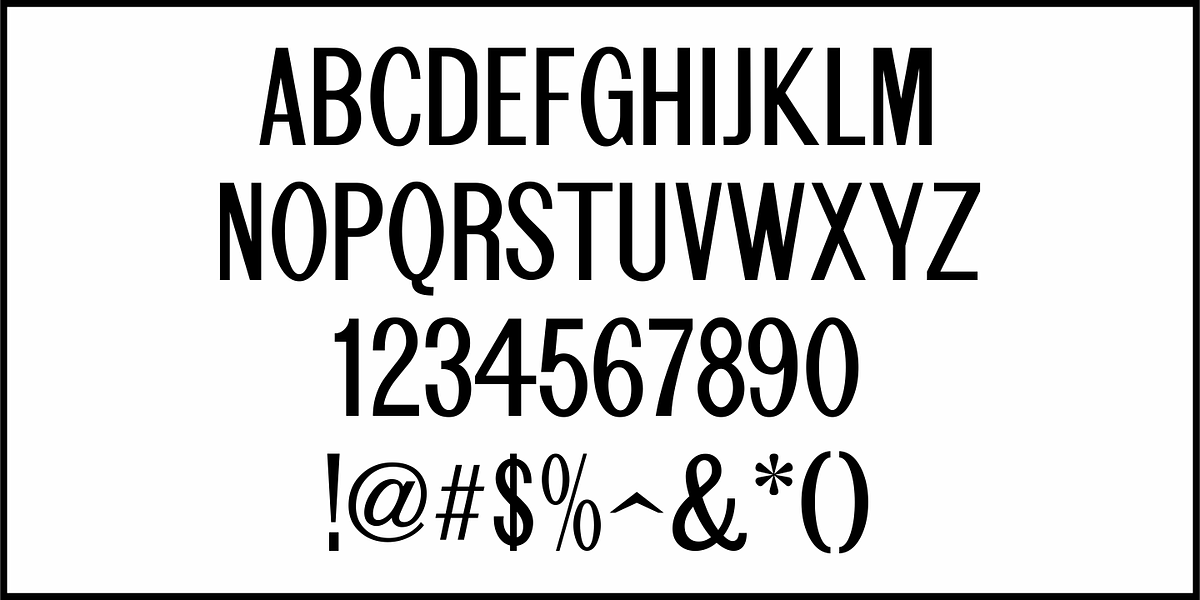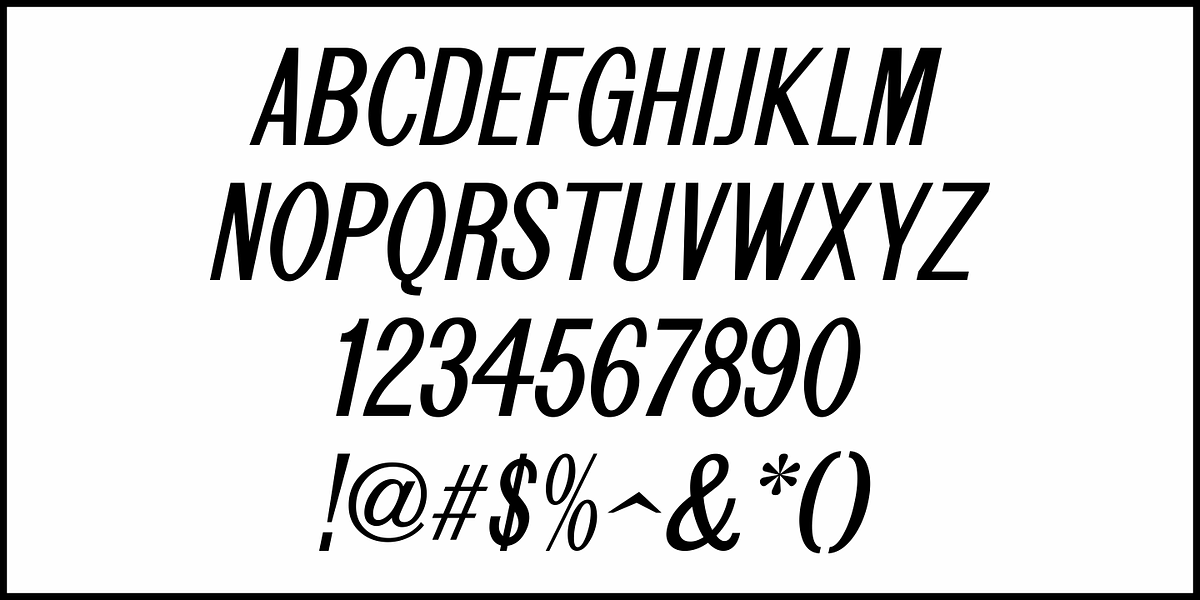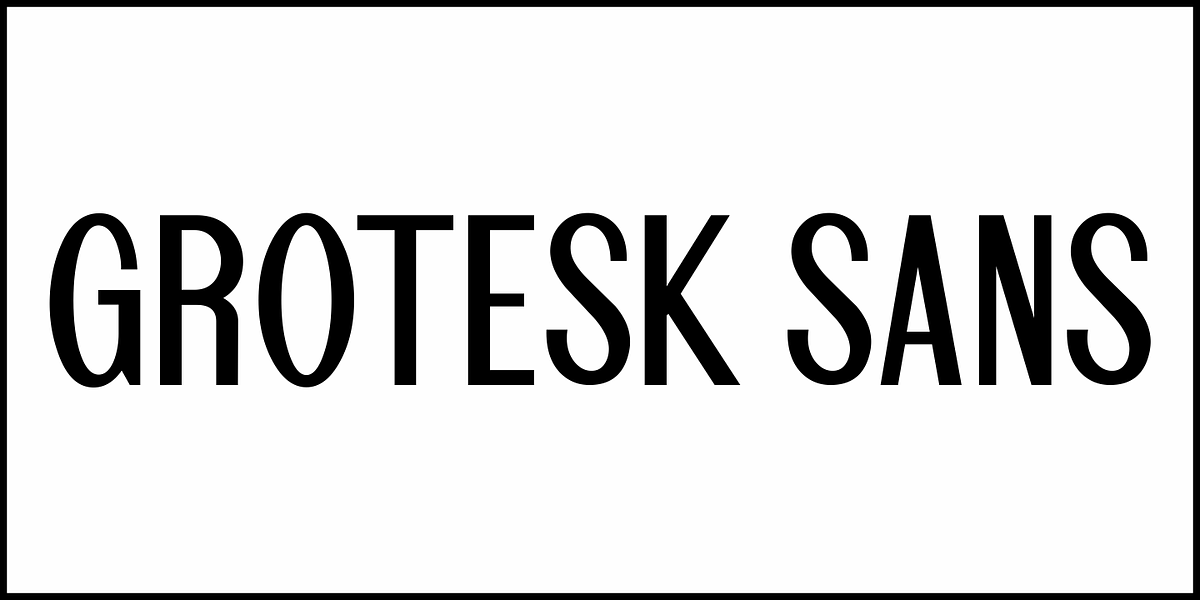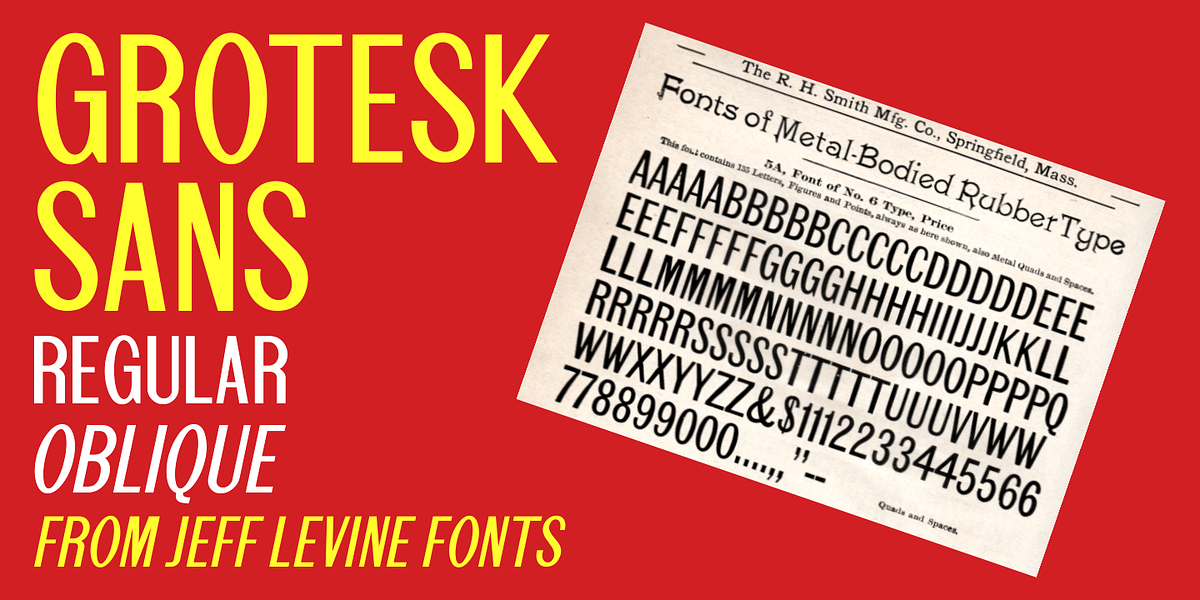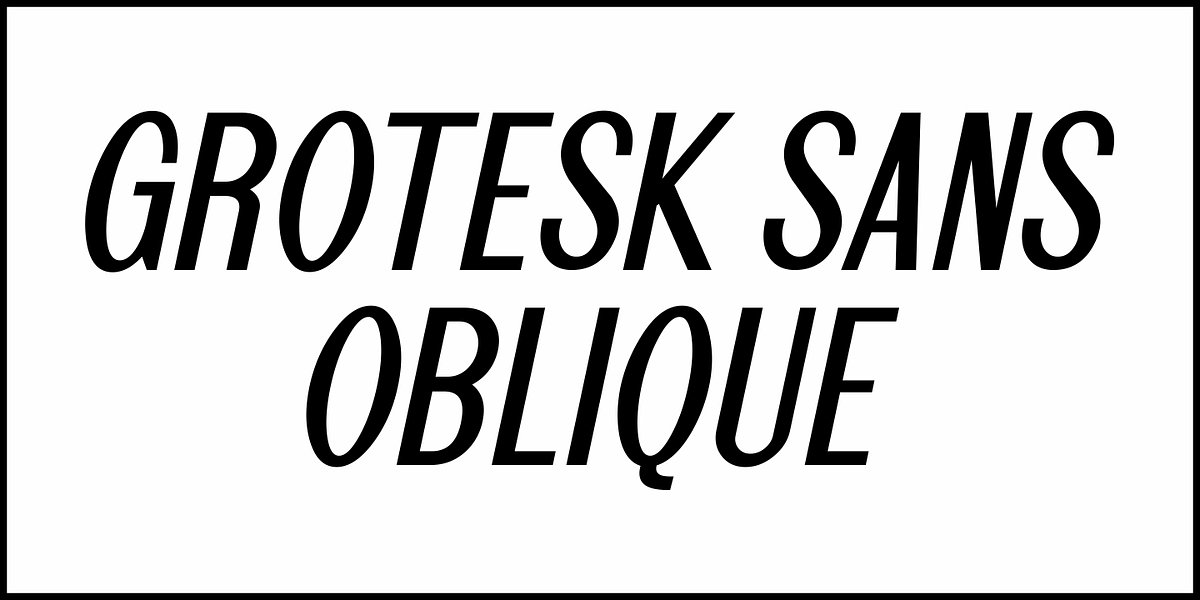
Grotesk Sans JNL
'Grotesk' was the name given to many early sans serif lettering designs.
Based on vintage metal type, this typeface takes a few liberties with stroke weights and even has the thicker side of the 'X' inverted.
Redrawn digitally as Grotesk Sans JNL, it is available in both regular and oblique versions.